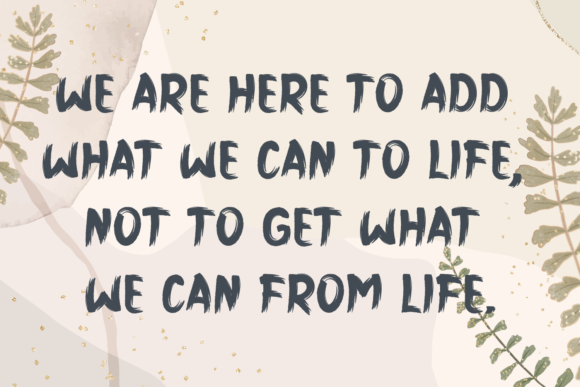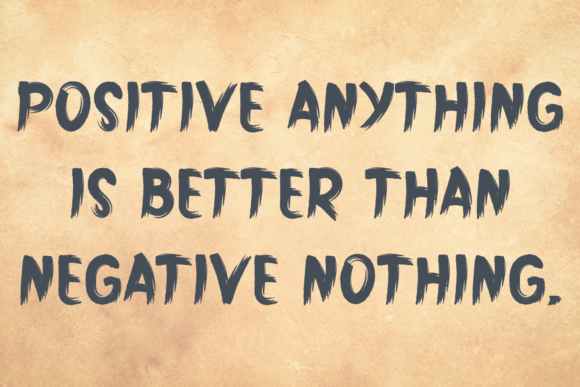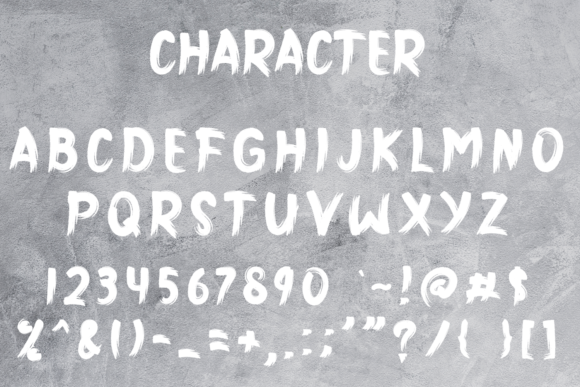
Introduction to Mart Seven` Font
Mart Seven is a brushed, relaxed & friendly display font.
Get inspired by its incredibly youthful feel, and add it to each of your creative ideas .
Key Features of Mart Seven` Font